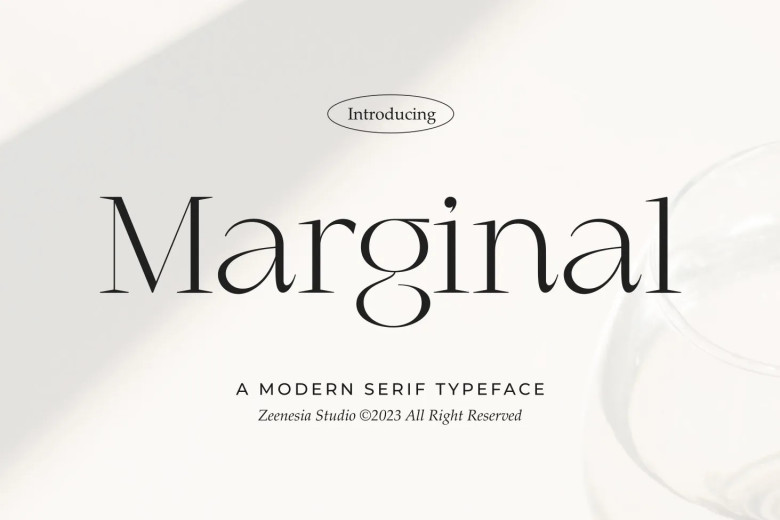
Marginal Font
Marginal is an elegant display font with serif design that adds serif character. Perfect for editorial projects, logo design projects, web font branding for clothing packages or magazine headers or simply adding an eye-catching text overlay onto any image, Marginal provides some added excitement in your work environment.
Marginal Serif Font